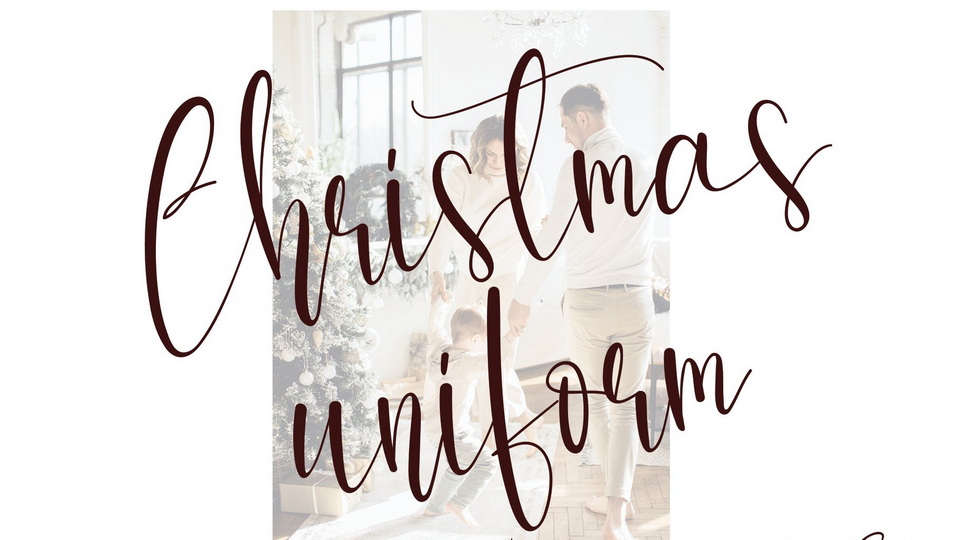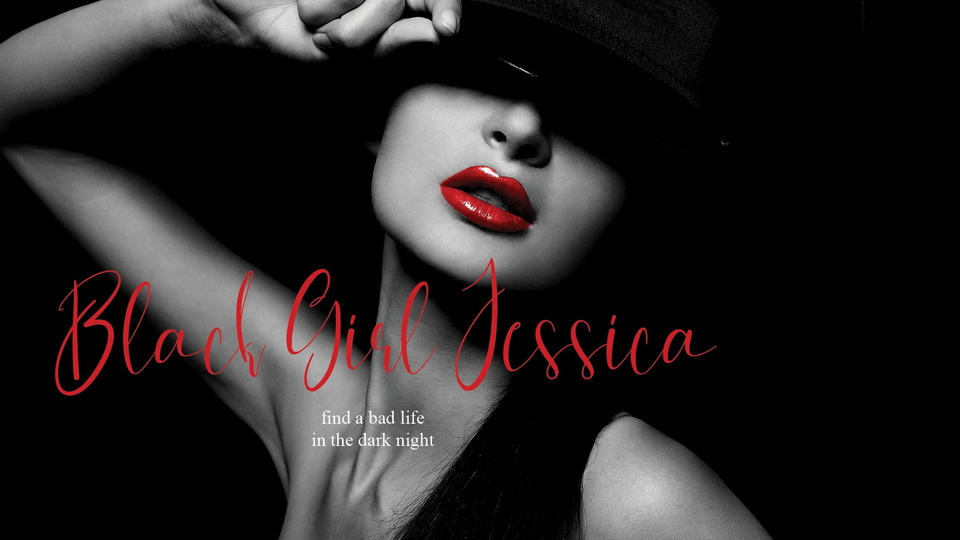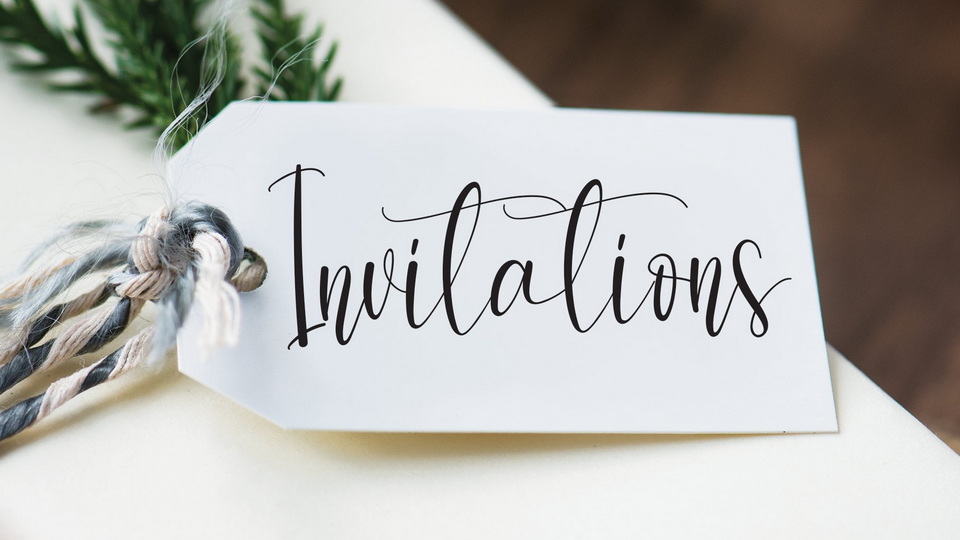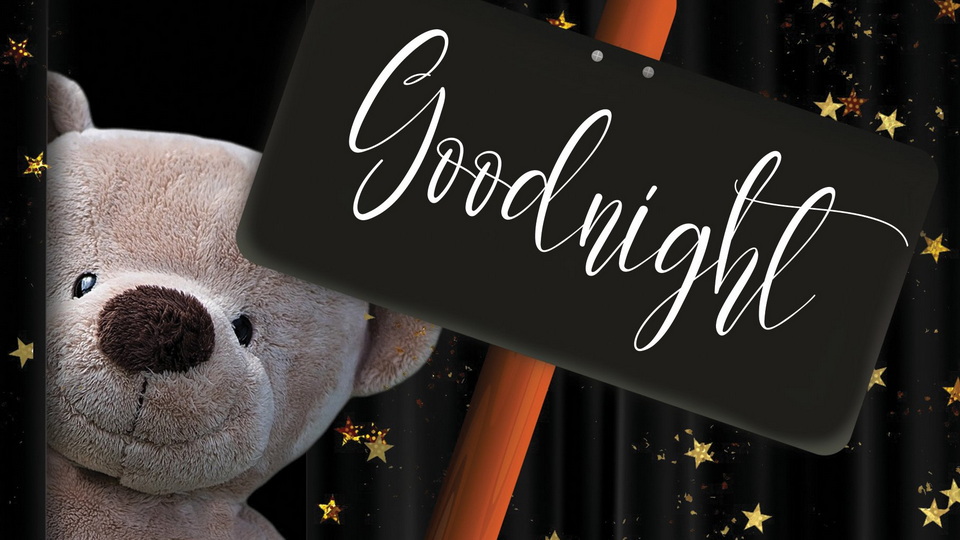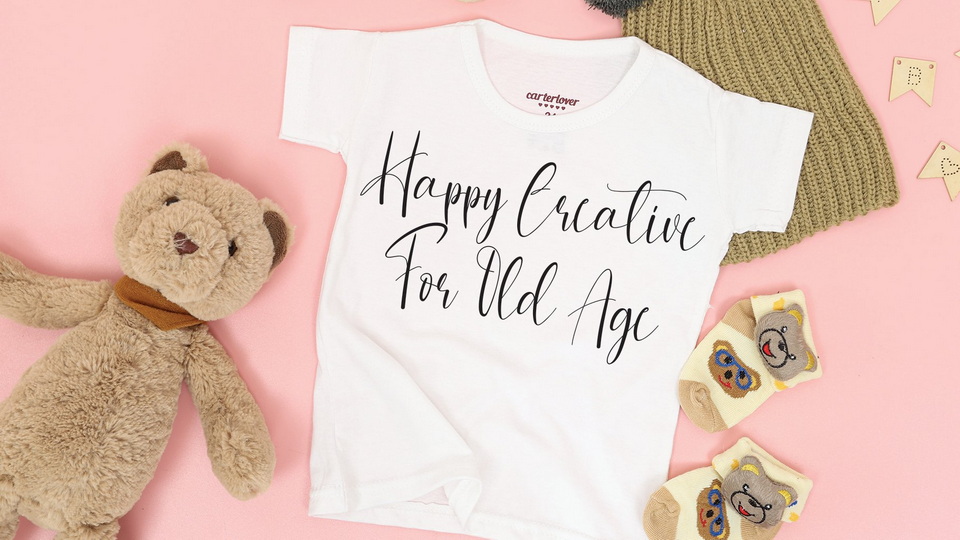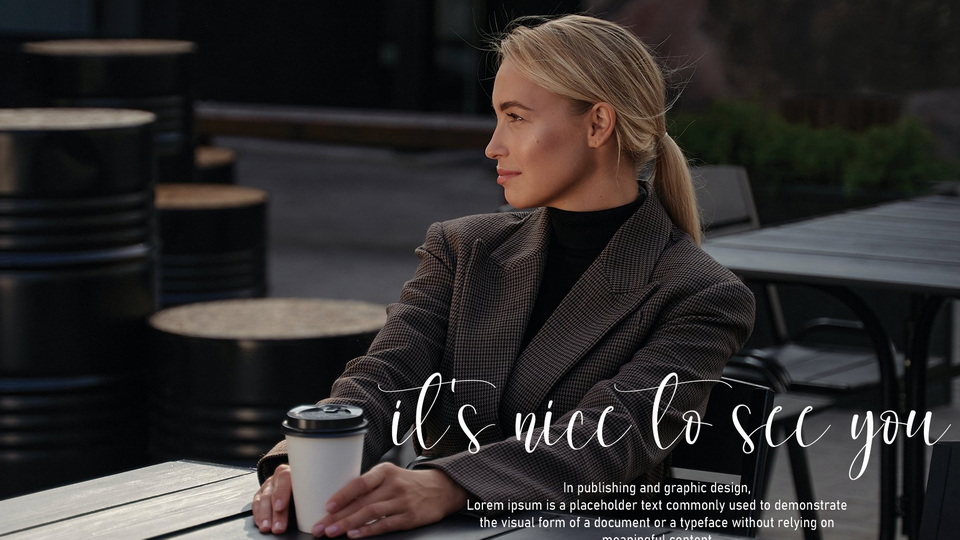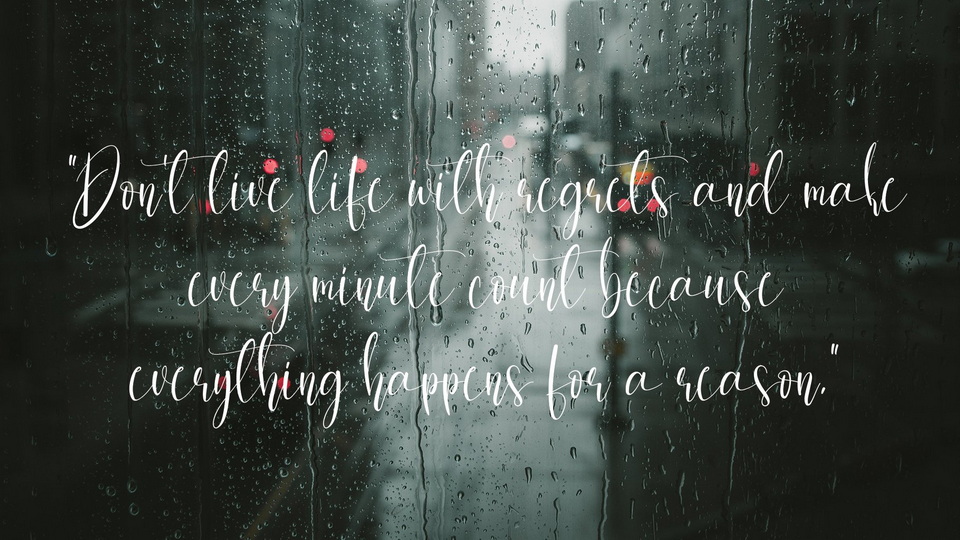
Christmas Uniform is a flowing and sweet calligraphy typeface carefully created with a touch of elegance.
Christmas Uniform font is perfect for wall displays, wedding invitations, social media post, logos, advertisements, product packaging, product designs, labels, photography, watermarks, invitations, stationery, and any project that requires taste handwriting.